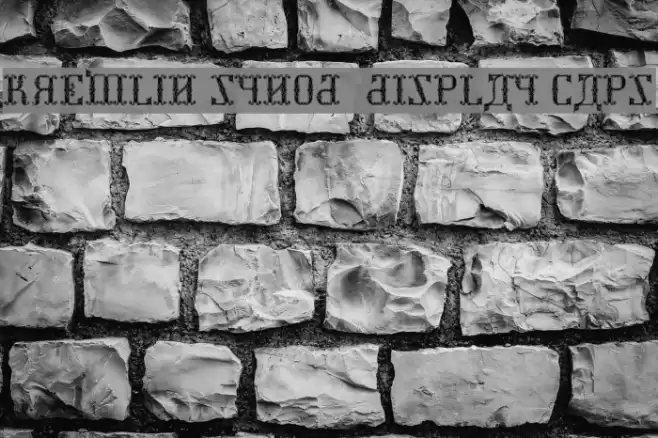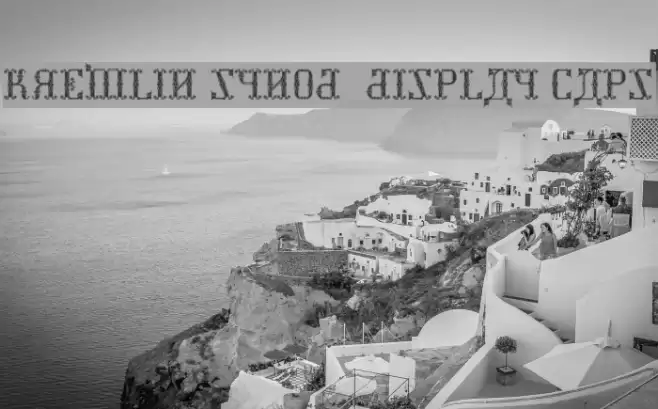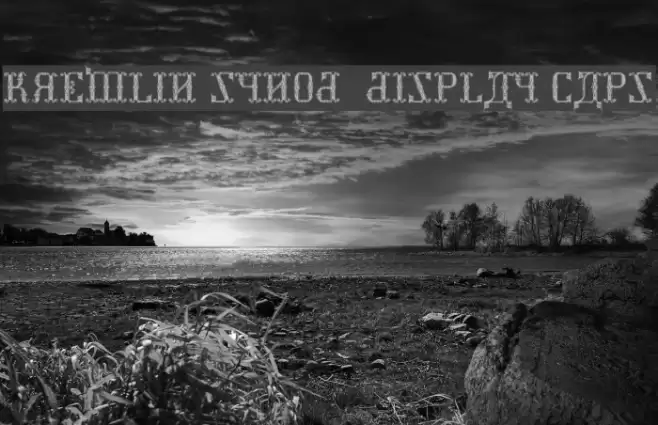
Kremlin Synod [Display Caps] Font
Kremlin Synod [Display Caps] Description
This font features an ornate and intricate design, reminiscent of historical and cultural motifs. Each letter is adorned with elaborate flourishes and decorative elements, giving it a regal and sophisticated appearance. The characters are bold and commanding, with a strong presence that makes them stand out. The style is highly decorative, with a nod to traditional craftsmanship and artistry. The font's unique design elements make it suitable for projects that require a touch of elegance and historical flair.
An ornate and decorative font with intricate flourishes and a regal appearance from Uncategorized fonts.
- Proposed Projects: Ideal for use in formal invitations, historical-themed designs, branding for luxury products, and decorative signage.
- Overall Style: Vintage
- Use Case: Logos, Headlines, Decorative elements